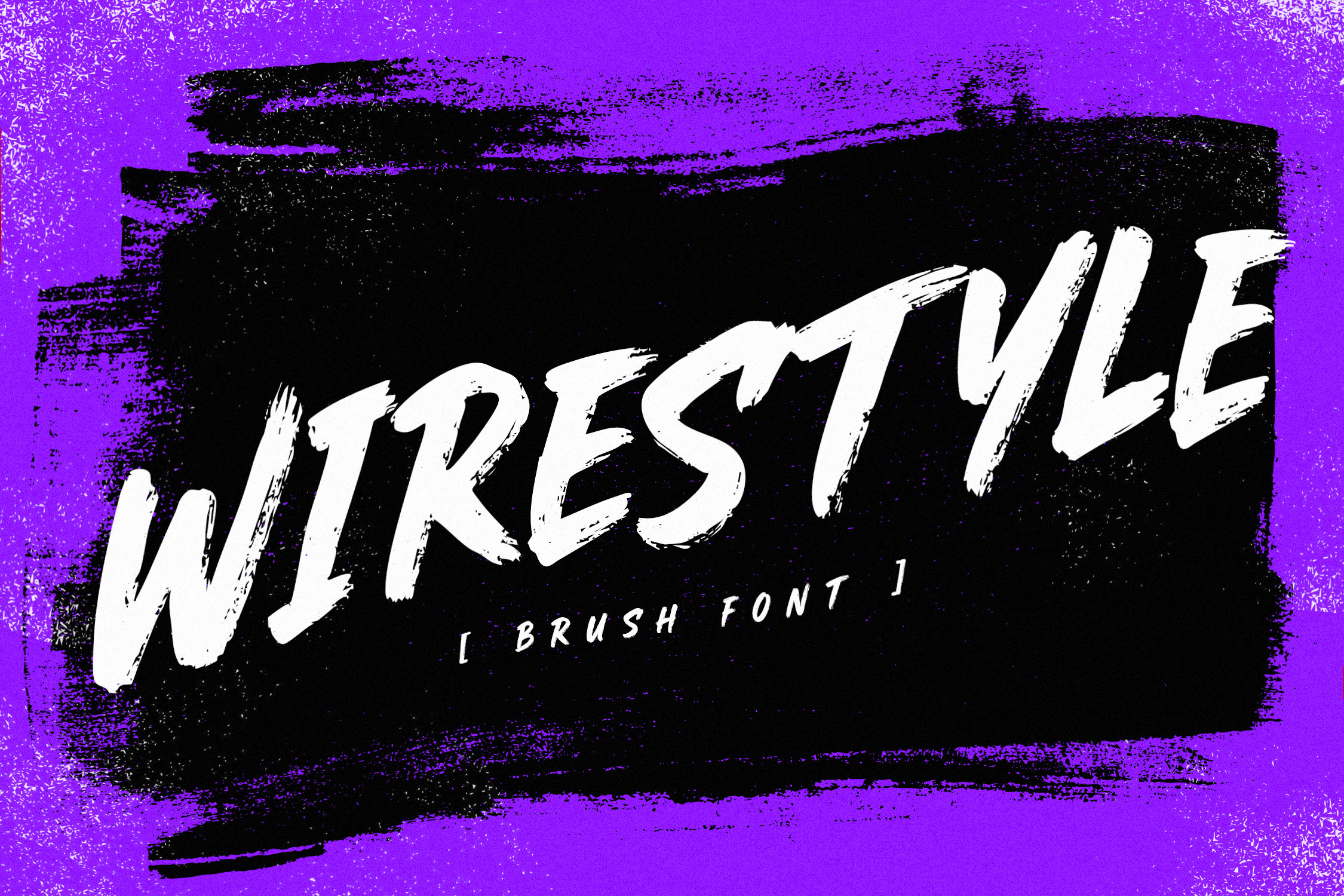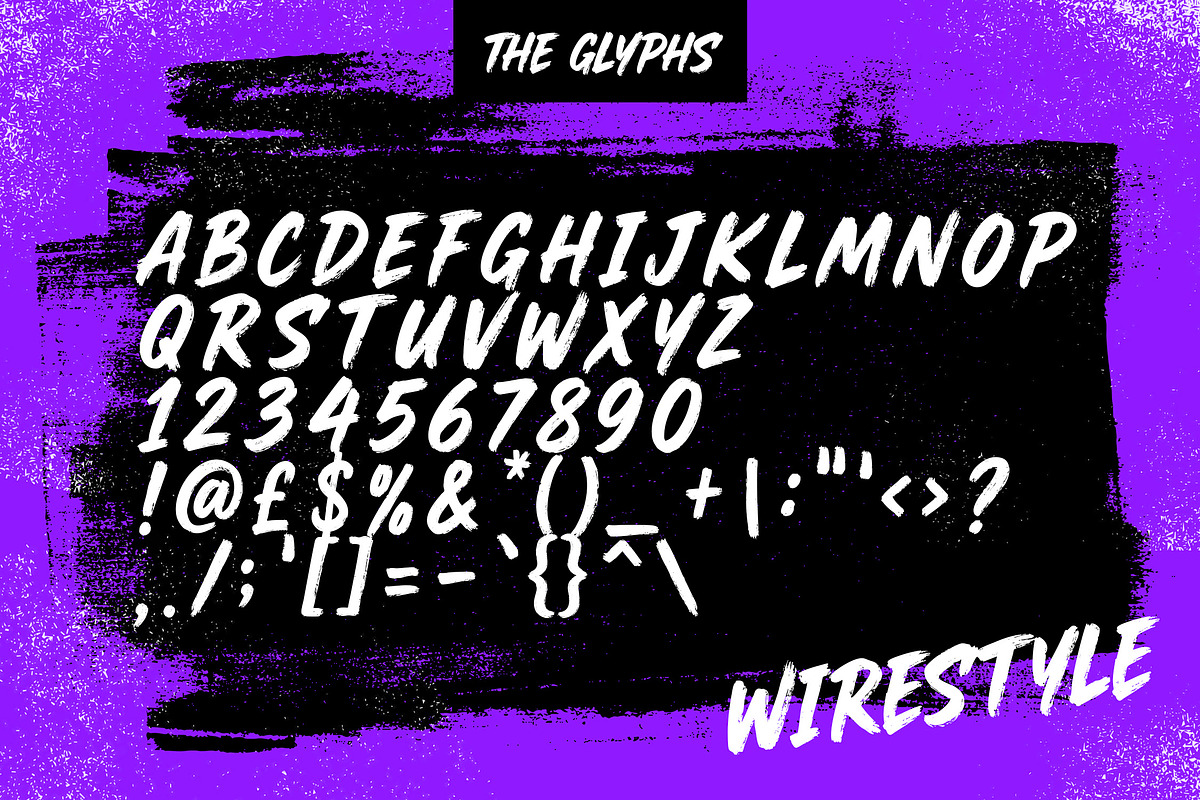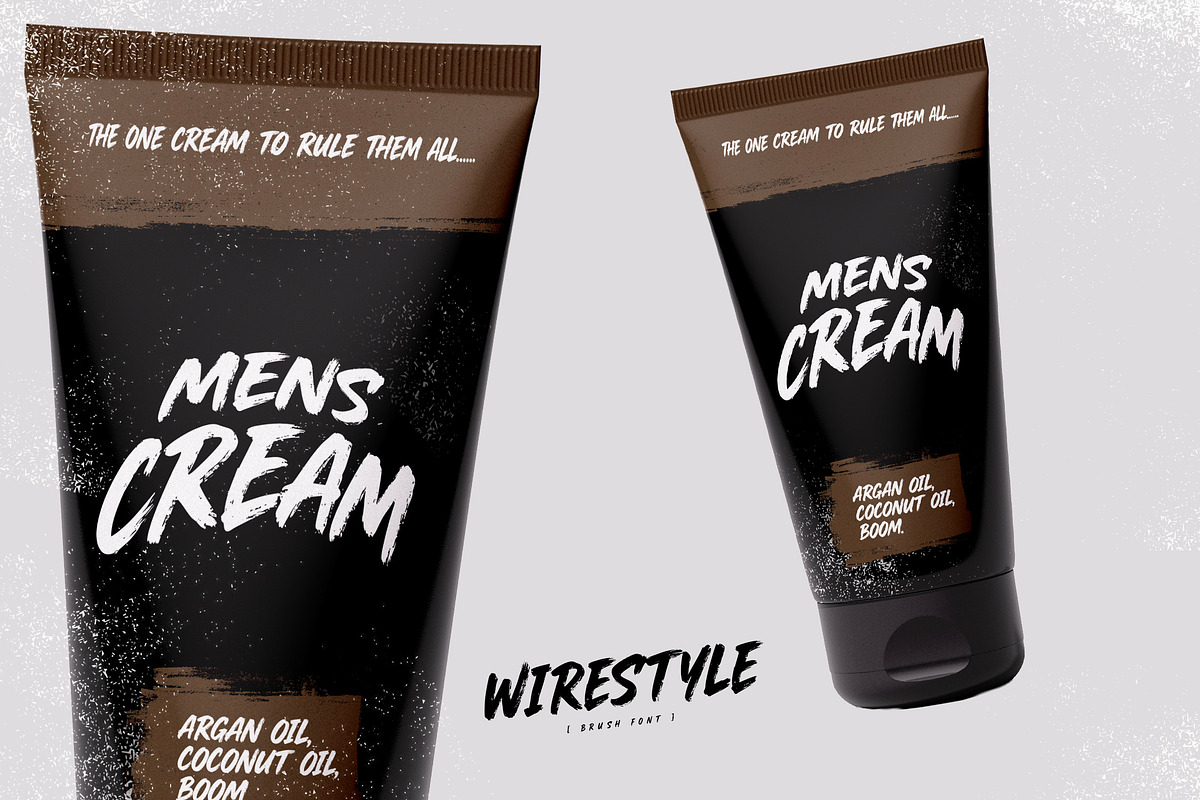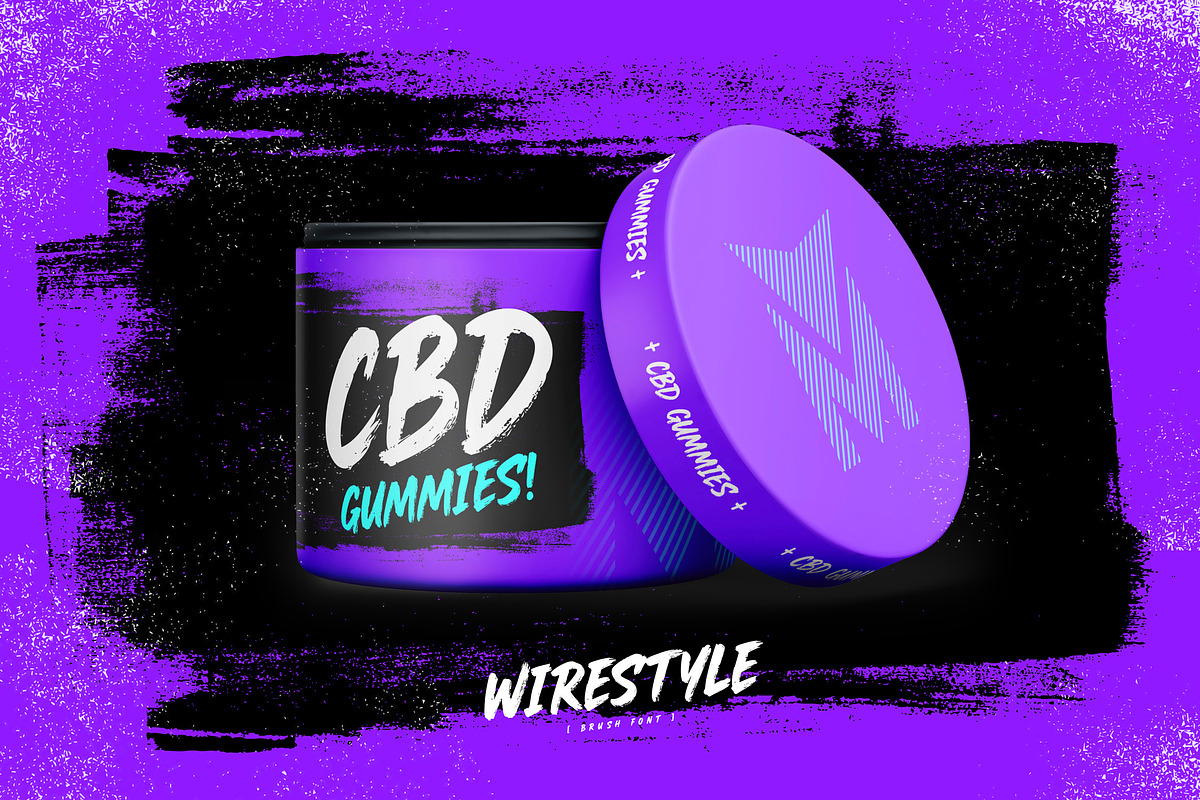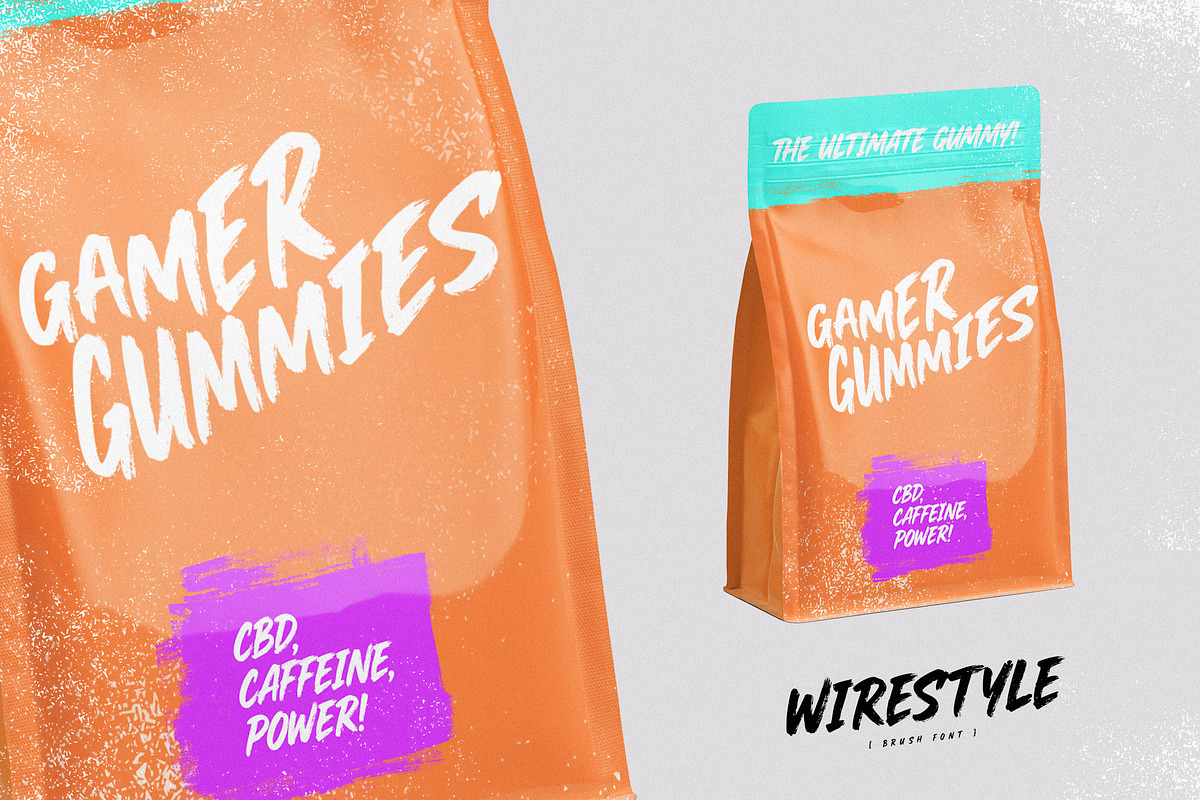
Wirestyle - Bold Brush Font
Introducing Wirestyle - Bold Brush Font
A thick, brush display font perfect for print and packaging design. It currently comes with support for Uppercase, Numbers & Punctuation.